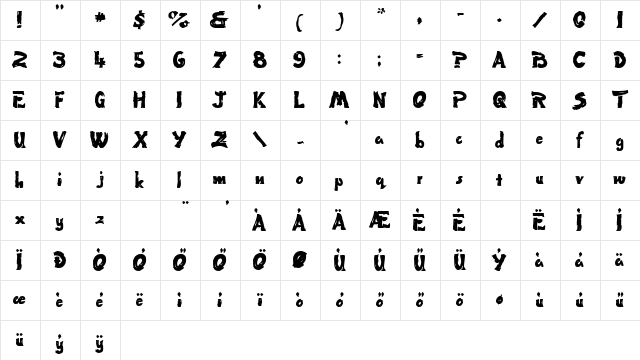
H_Wet Paint Regular
Design Context for H_Wet Paint
H_Wet Paint is a composed and adaptable typeface that performs quietly and consistently across a wide range of design contexts.
Pro Tip: Use H_Wet Paint in both headline and body roles to test its range before committing to a single application.